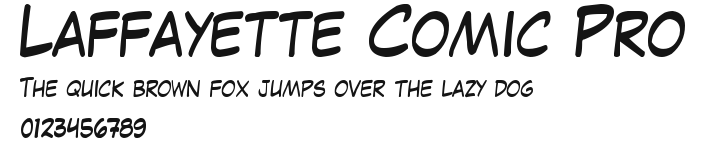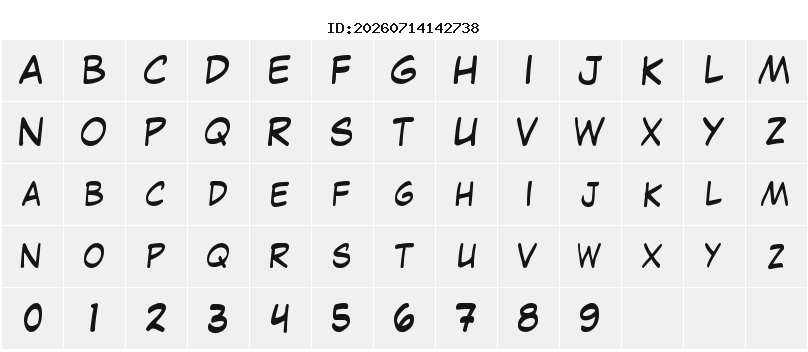
Laffayette Comic Pro Preview
• Font Name: Laffayette Comic Pro
• Full Font Name: Jaws Comic Pro JY
• Designer: Laffayette Systems©
• Manufacturer: Laffayette Systems©
• Description: Laffayette Comic Pro
About Laffayette Comic Pro.ttf
Laffayette Comic Pro.ttf is a modern, elegant sans-serif font designed for ultimate readability and visual harmony. Perfect for branding, headlines, web design, and print materials.